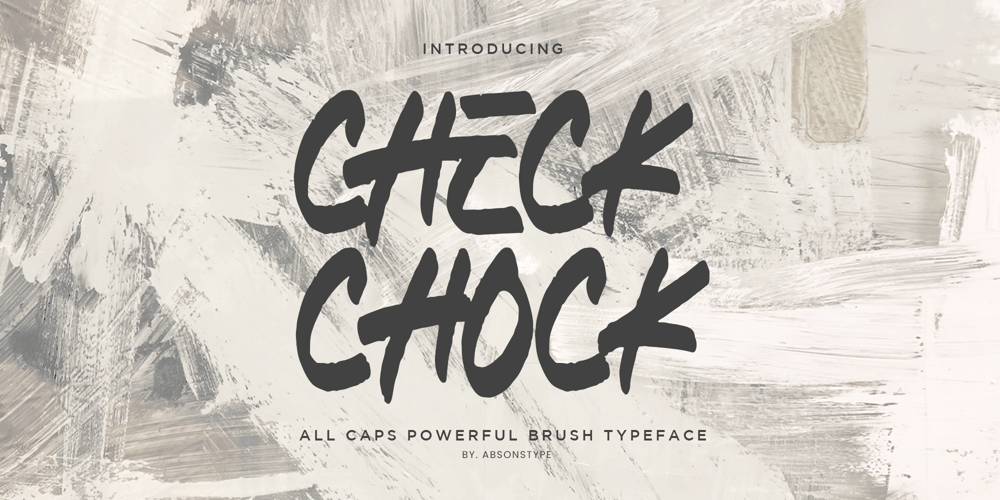
Check Chock Font Family was designed by Edhi Prayitno and published by Absonstype. Check Chock contains 1 styles and family package options. Check Chock is the brush display typeface with simple brush textured and all caps style looks and feel nice balanced.Honestly it works perfectly for headlines, logos, posters, packaging, T-shirts and much more for branding and anything designs.Recommended to use in Adobe Illustrator or Adobe Photoshop with opentype feature.Ligatures feature is default setting in Adobe Illustrator or Adobe Photoshop in Uppercase character. So when you want not to use the ligatures.Open glyphs panel : In Adobe Photoshop choose tool Window Character and then please click fi symbol In Adobe Illustrator choose tool Window Type Open Type and then please click fi symbol If you have questions, just send me a message and I’m glad to help.Have a great day,Absonstype